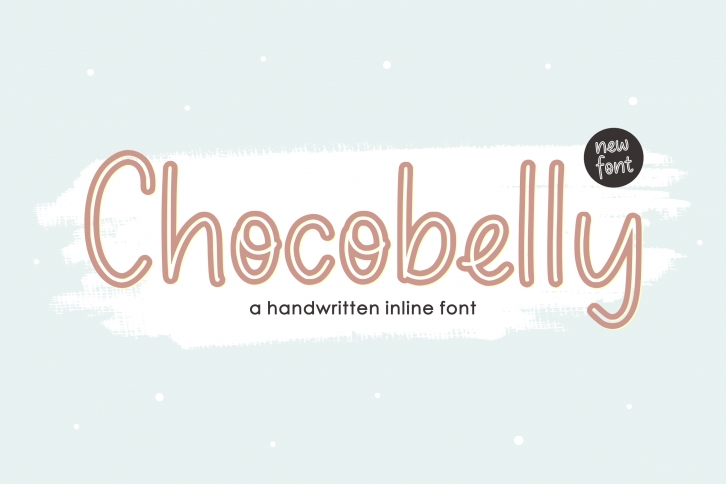
Chocobelly – A Handwritten Inline Font
Chocobelly is perfect for product packaging, branding project, magazines, social media, weddings, or just used to express words above the background.